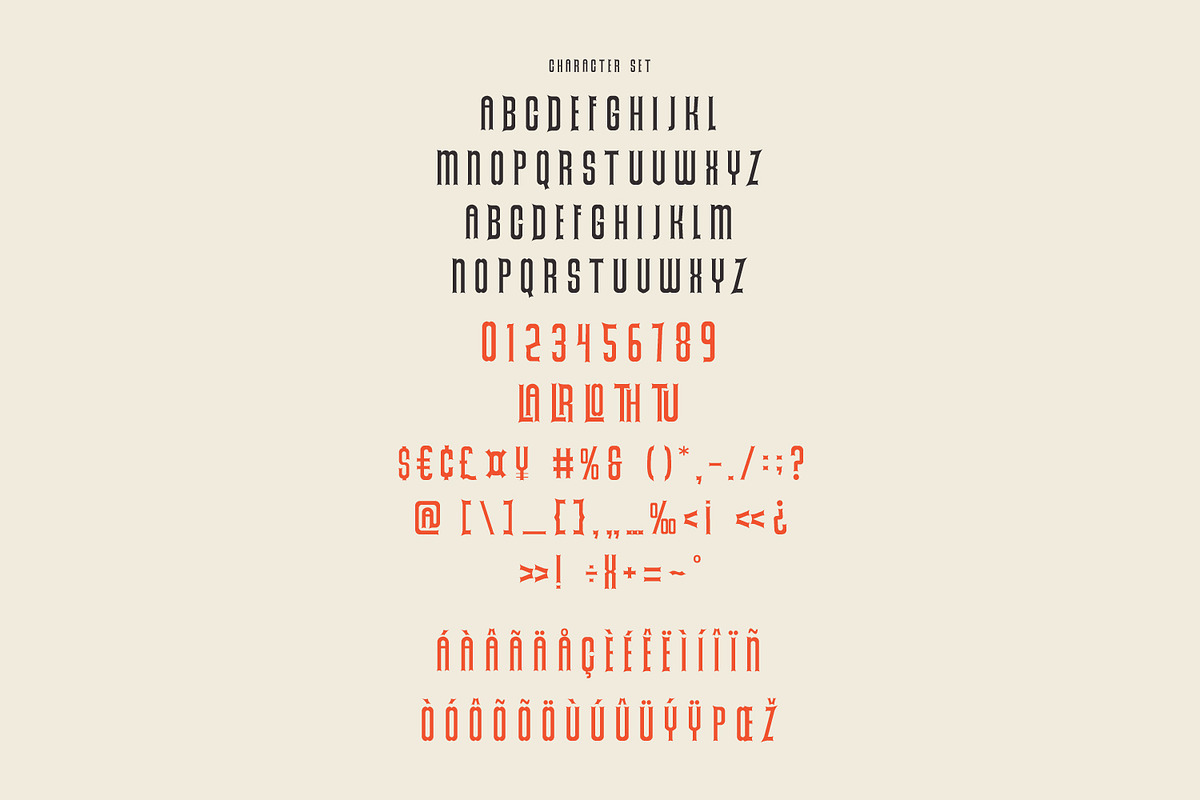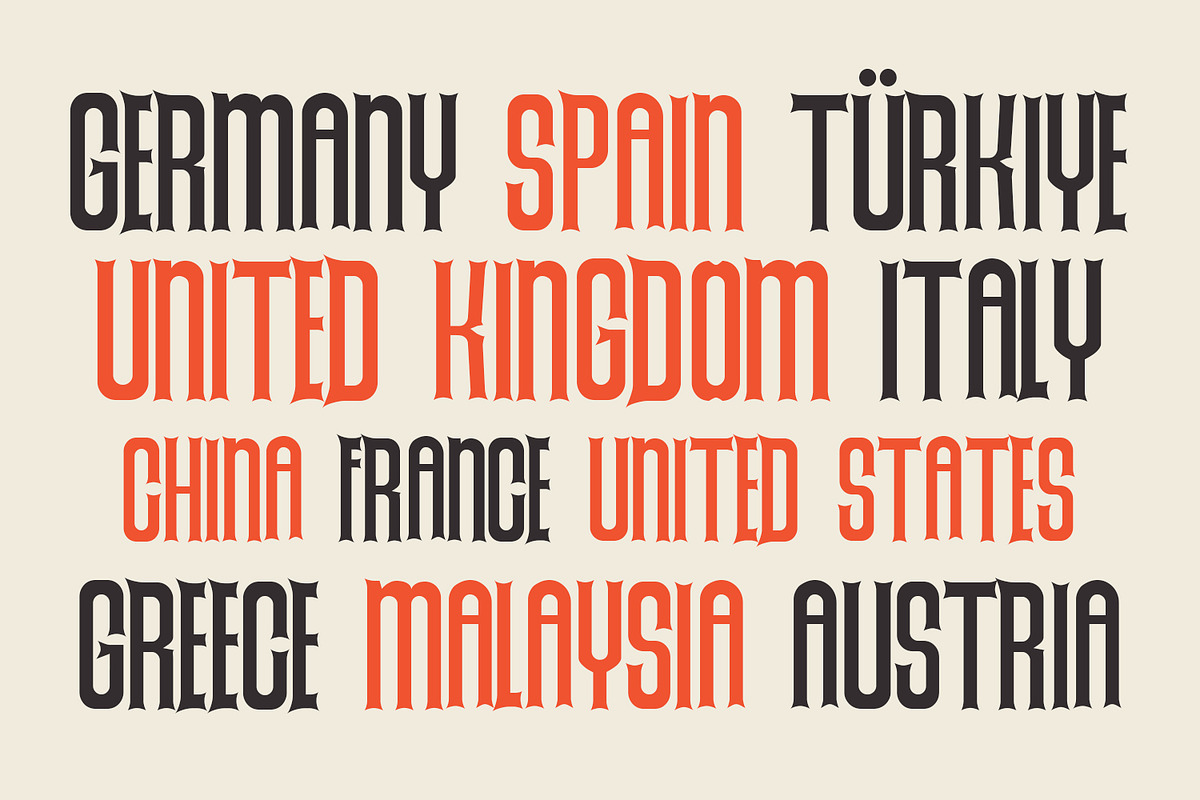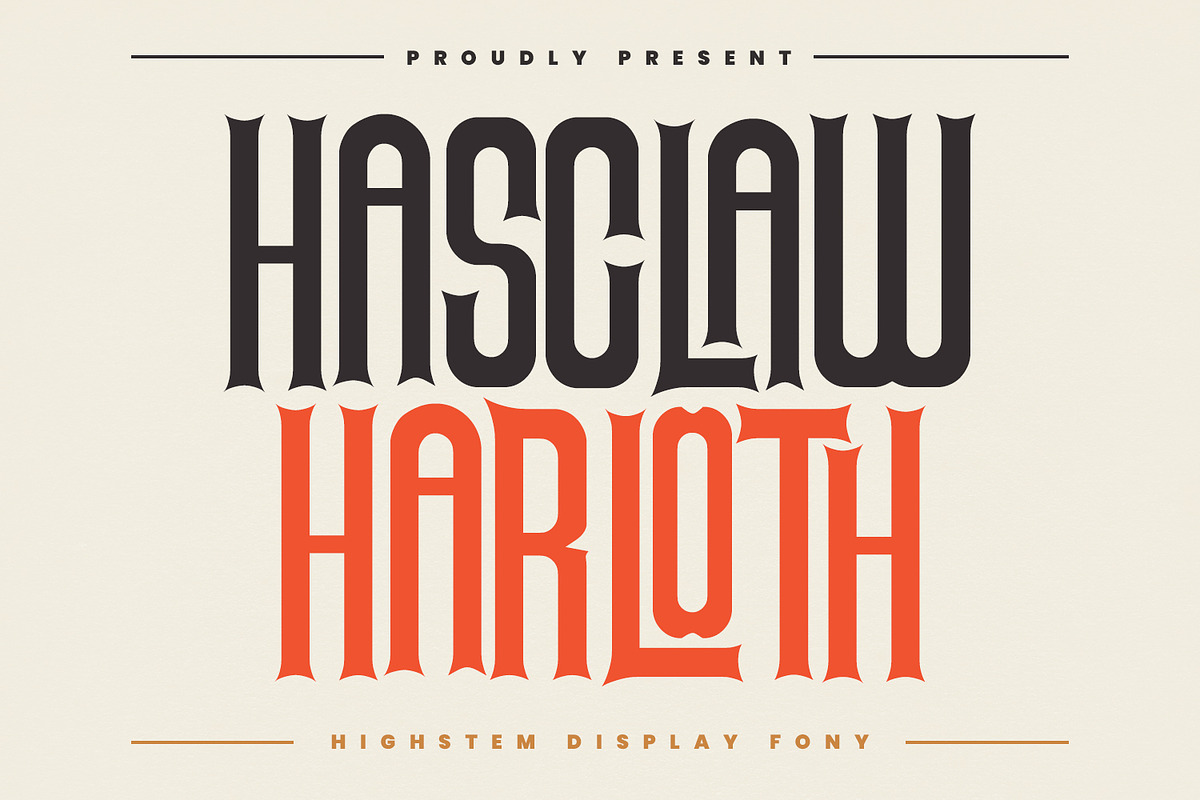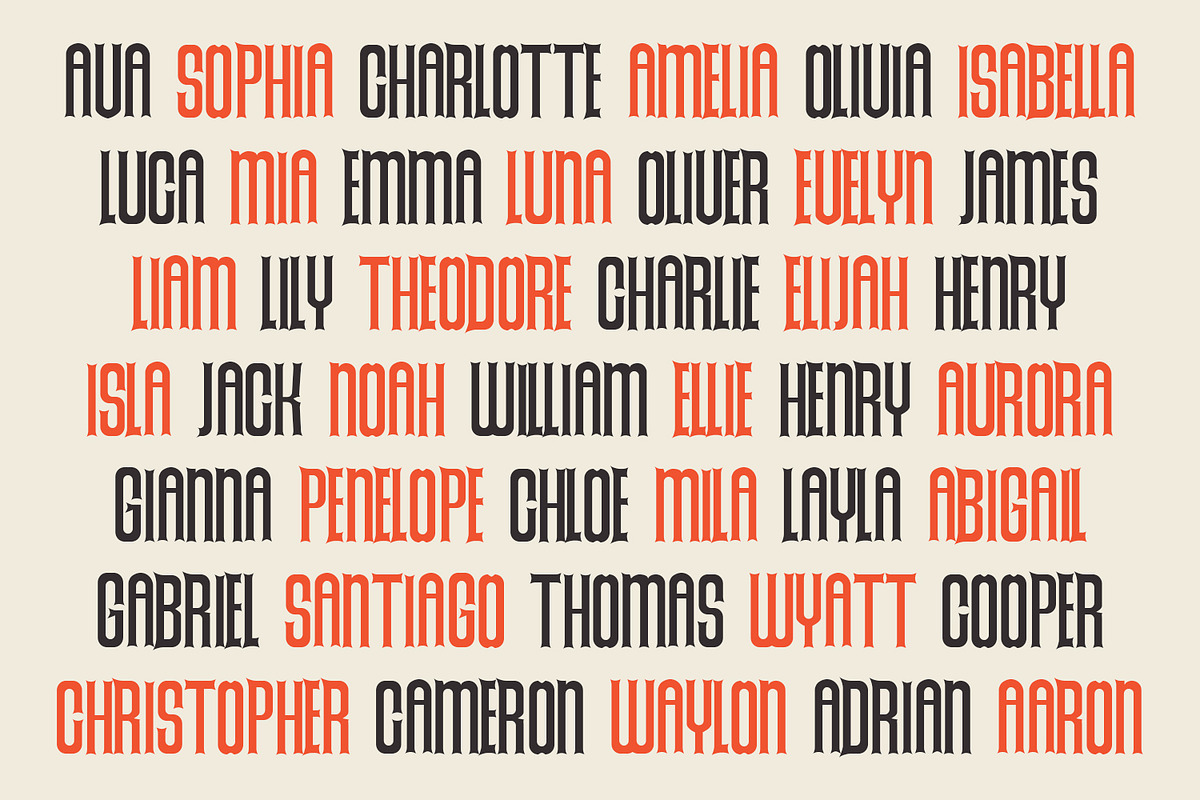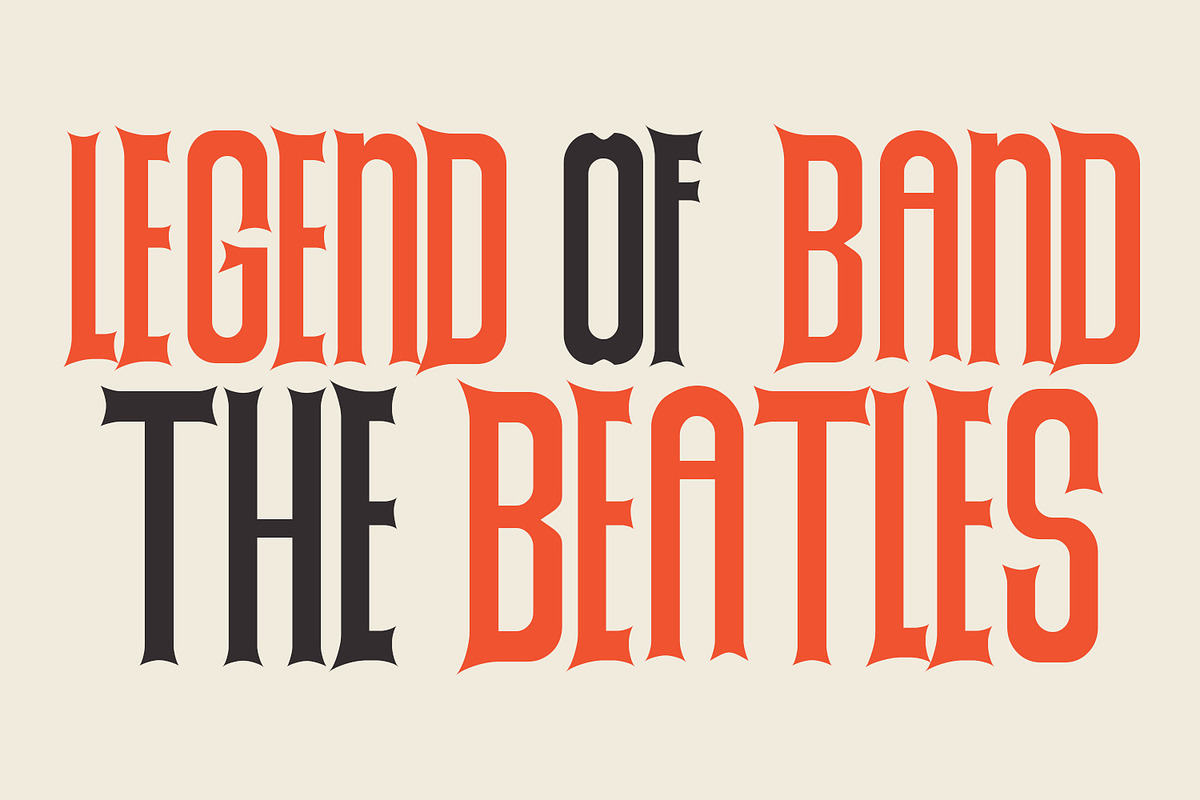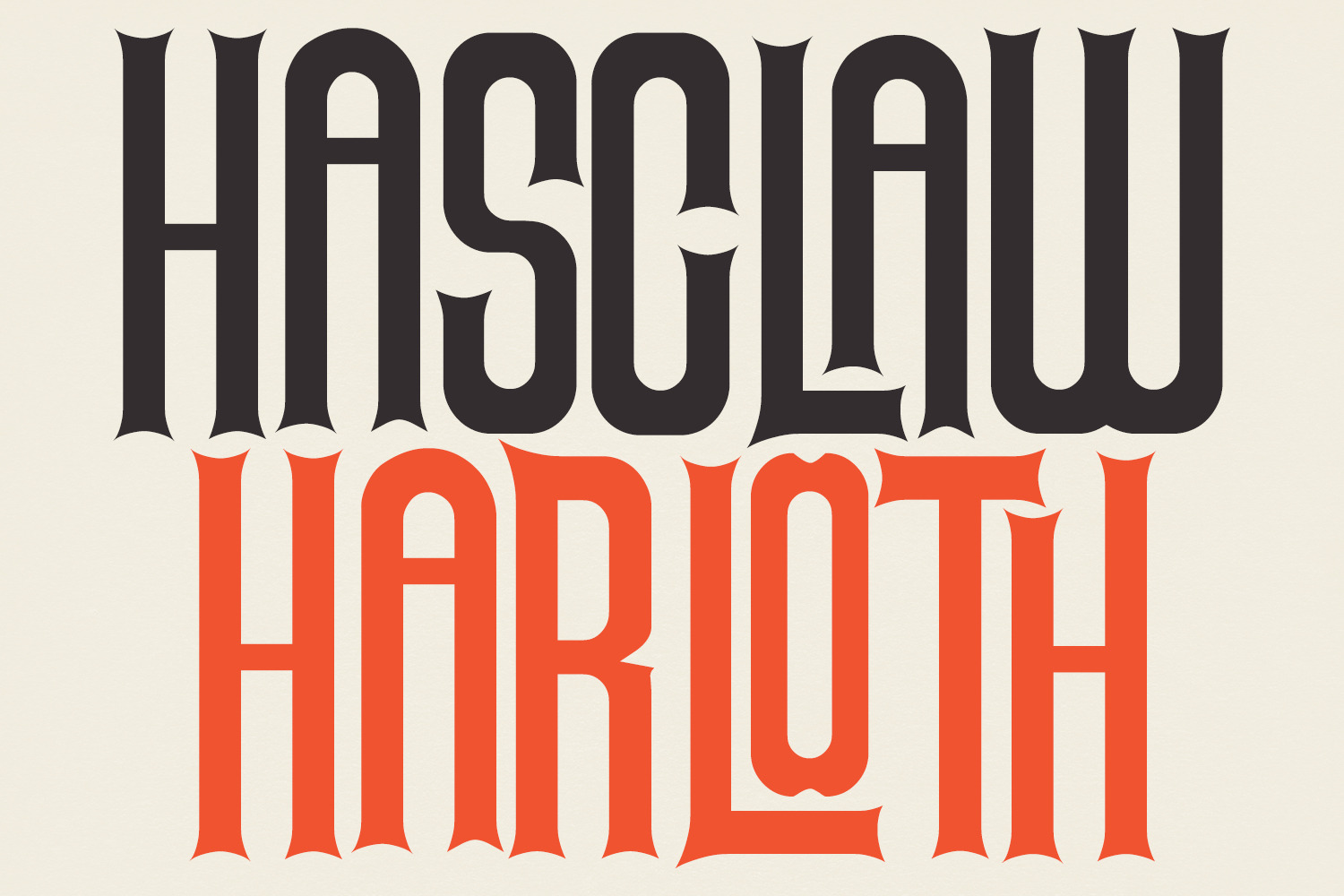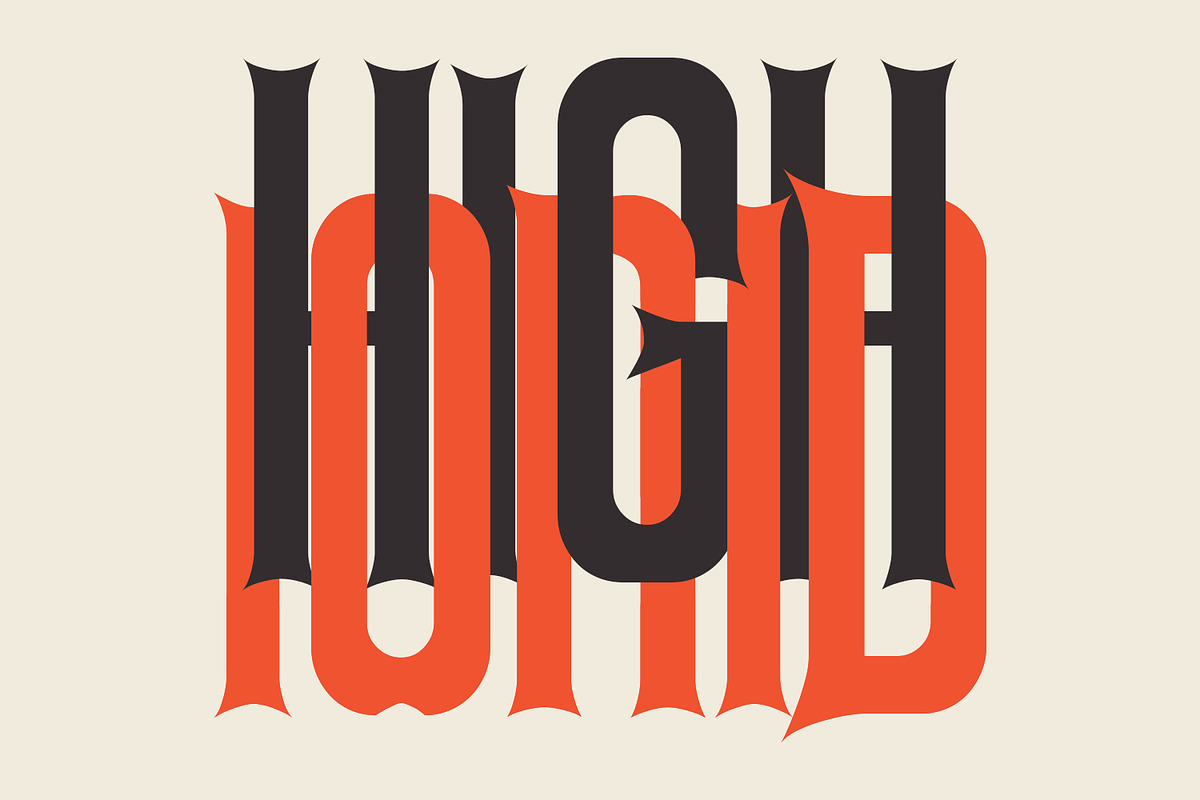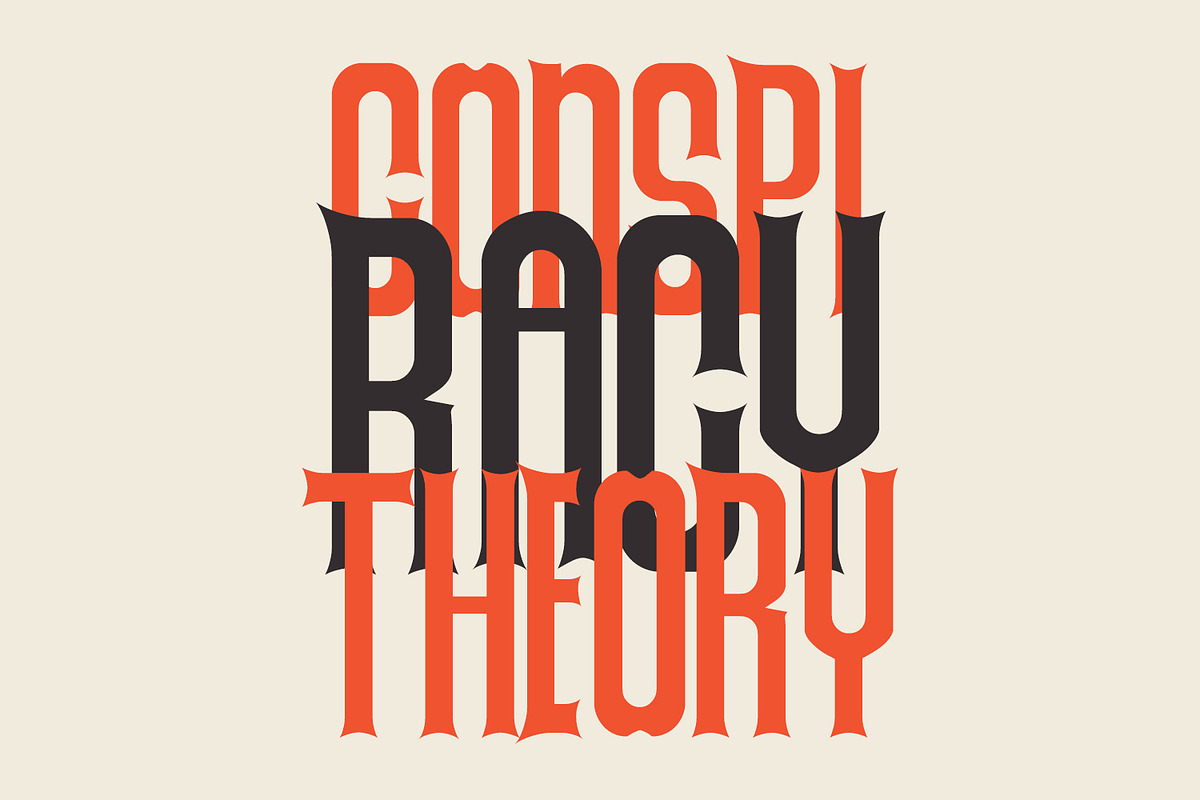
Hasclaw Harloth Highstem Font
Hasclaw Harloth is a highstem modern condensed all Caps font. With bold tall and sharp stroke, fun character with a bit of ligatures. To give you an extra creative work. Hasclaw Harloth font support multilingual language. This font is good for logo design, Social media, Movie Titles, Books Titles, a short text even a long text letter and good for your secondary text font with sans or serif. Make a stunning work with Hasclaw Harloth font.